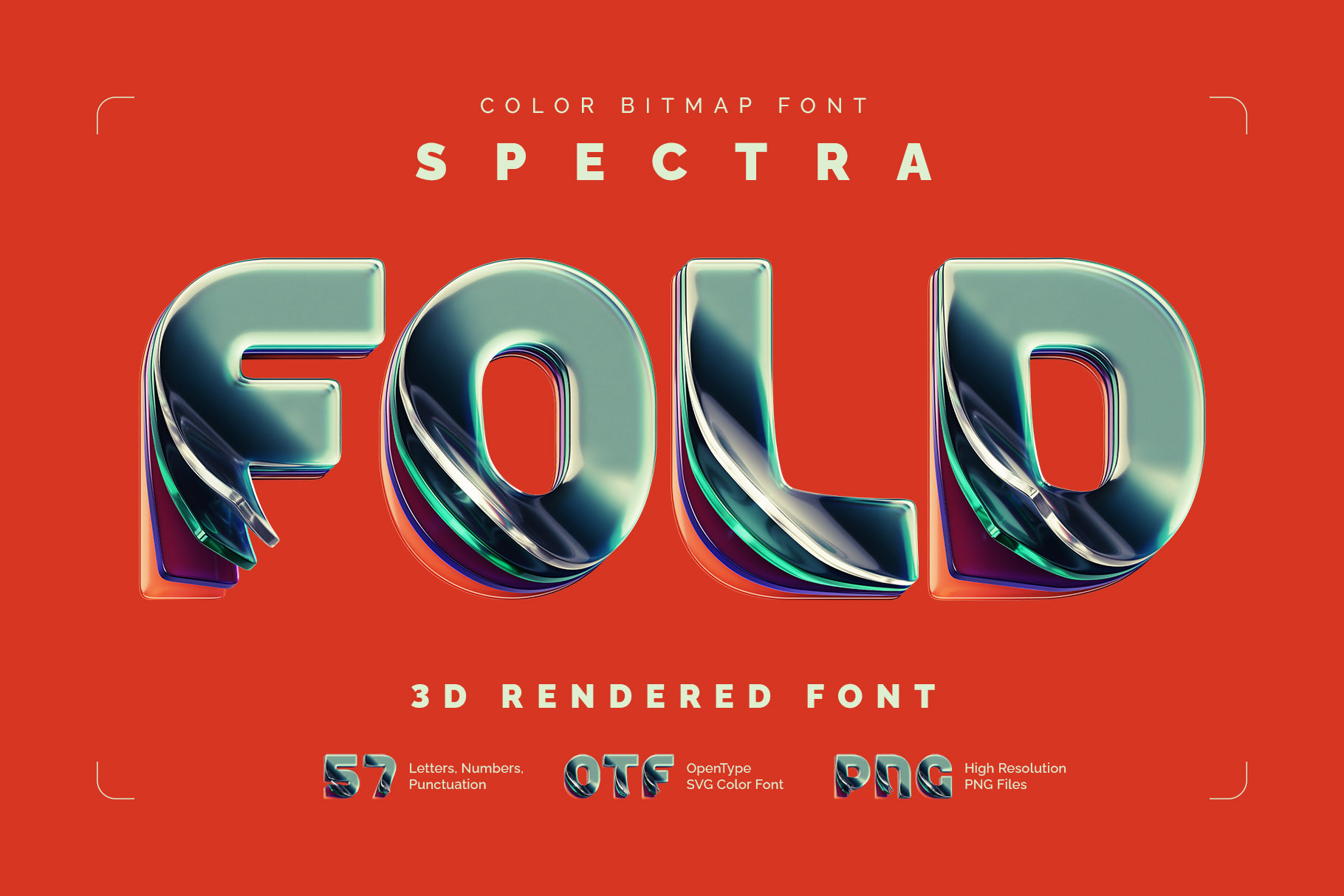
Spectra Fold - Color Bitmap Font
Introducing Spectra Fold, a colorful, creative font set. This 3D font has smooth, rounded shape with letters made of shiny glass layers folded like a pages.